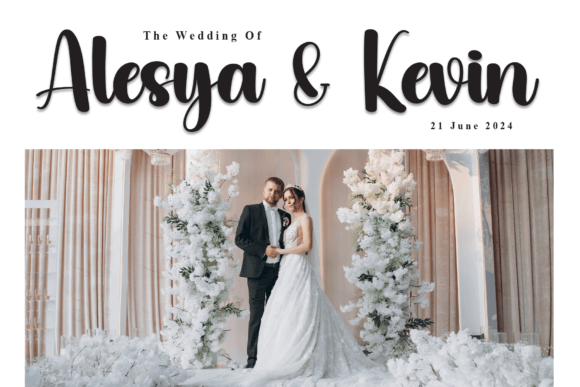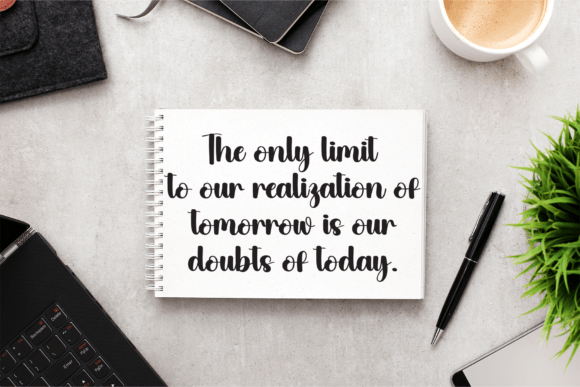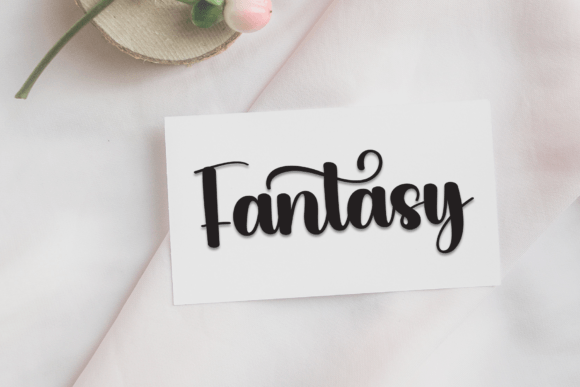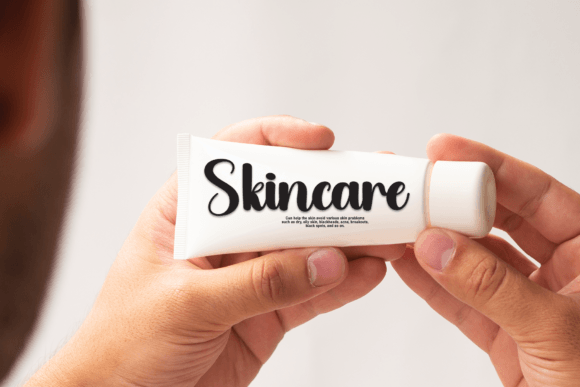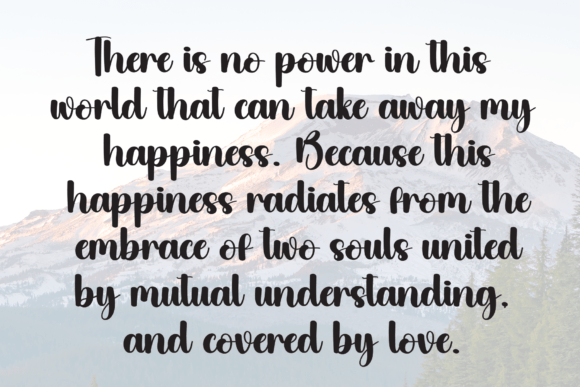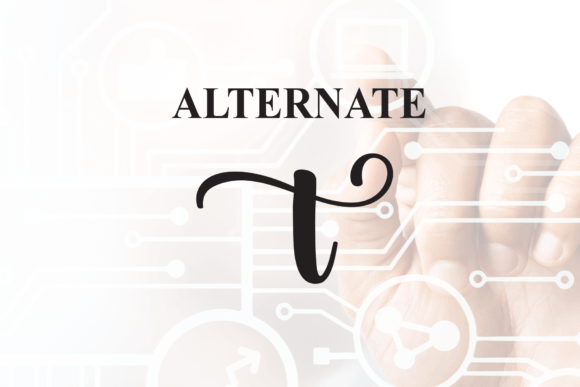
Discover the Charm of Digital: A Sweet and Friendly Handwritten Font
In the world of digital design, typography plays a crucial role in conveying messages, expressing emotions, and creating visual identities. Among the numerous fonts available, Digital stands out as a sweet and friendly handwritten font that has captured the hearts of designers and crafters alike. Its natural and unique style makes it incredibly fitting for a wide range of designs, limited only by your imagination.
The Allure of Digital Font
Digital font is a beautifully crafted handwritten typeface that exudes warmth and approachability. Its sweet and friendly demeanor makes it perfect for designs that require a personal touch, such as invitations, greeting cards, and social media graphics. The font’s natural and unique style gives it a distinct character that sets it apart from more traditional and formal typefaces.
Versatility Unleashed
One of the most significant advantages of Digital font is its versatility. Its unique style makes it suitable for a wide range of design applications, from:
- Logos and branding: Create a memorable and distinctive brand identity with Digital font.
- Invitations and greeting cards: Add a personal touch to your invitations and greeting cards with this charming font.
- Social media graphics: Make your social media posts stand out with Digital font’s friendly and approachable style.
- Packaging design: Use Digital font to create eye-catching packaging designs that appeal to customers.
- Web design: Enhance your website’s typography with Digital font’s unique and natural style.
What Makes Digital Font Special?
So, what makes Digital font so special? Here are a few key features that set it apart:
- Handwritten style: Digital font boasts a beautiful, handwritten style that gives it a personal and unique touch.
- Natural and fluid: The font’s natural and fluid strokes create a sense of movement and energy.
- Highly legible: Despite its handwritten style, Digital font is highly legible, making it suitable for body text and headlines.
- Extensive character set: Digital font comes with an extensive character set, including uppercase and lowercase letters, numbers, and punctuation marks.
Tips for Using Digital Font Effectively
To get the most out of Digital font, here are some tips to keep in mind:
- Pair it with contrasting fonts: Pair Digital font with contrasting fonts to create visual interest and hierarchy.
- Use it for headlines and titles: Digital font is perfect for headlines and titles, where its unique style can shine.
- Experiment with colors and textures: Add an extra layer of depth to your designs by experimenting with different colors and textures.
- Keep it simple: Don’t over-accessorize – let Digital font’s natural style take center stage.
In conclusion, Digital font is a sweet and friendly handwritten font that offers a world of creative possibilities. Its natural and unique style makes it incredibly fitting for a wide range of designs, from logos and branding to social media graphics and packaging design. With its versatility, legibility, and extensive character set, Digital font is an excellent choice for designers and crafters looking to add a personal touch to their designs. So why not give Digital font a try and see where your imagination takes you?